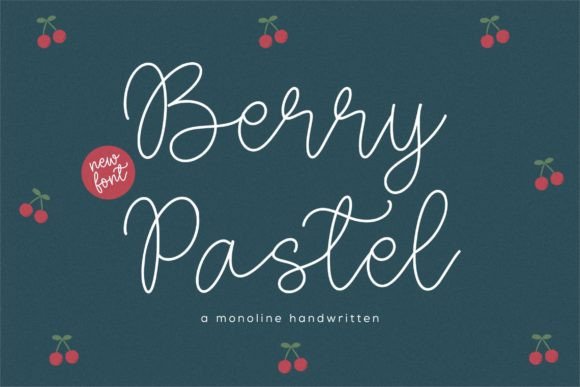
Journey into the world of Berry Pastel, a monoline handwritten font that exudes elegance and sophistication. This breathtaking creation by Balpirick is a symphony of clean lines and understated beauty, perfect for designers seeking a timeless yet modern aesthetic. Experience the joy of effortlessly crafting logos, branding, invitations, and packaging that leave an indelible mark.
With its smooth, flowing strokes and inherent versatility, Berry Pastel adapts seamlessly to any design project. Its graceful curves bring a touch of charm to logos, while its understated sophistication lends a professional edge to branding materials. Enchant wedding invitations with its delicate touch, or elevate packaging designs with its timeless appeal.
Berry Pastel is more than just a font; it's an expression of art, a tool to unleash your creativity. Whether you're a seasoned designer or just starting your journey, this font will become an indispensable part of your toolkit. Its user-friendly nature and extensive character set make it accessible to all, ensuring a smooth and enjoyable design experience.
So, dive into the world of Berry Pastel and let your imagination soar. Create designs that resonate with your audience, leaving a lasting impression that speaks volumes about your brand. With Berry Pastel as your creative companion, the possibilities are endless.